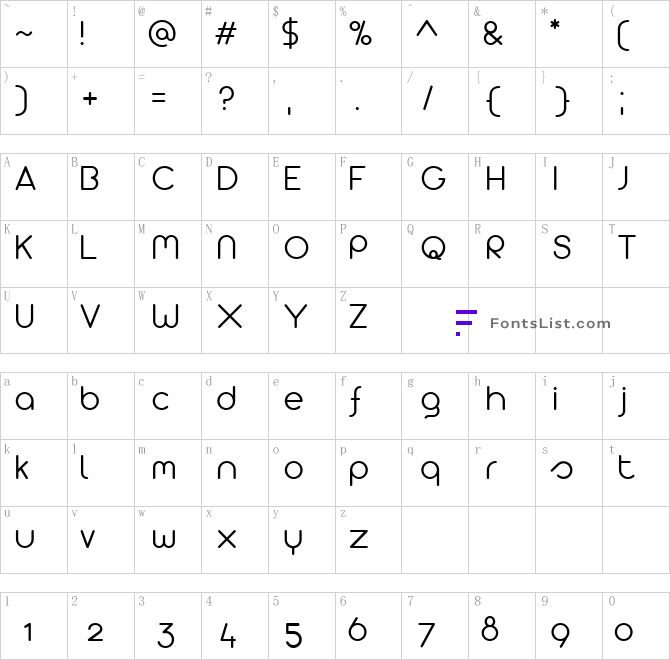
- Font Name:Arista 2.0 Alternate Light
- Full Name:Arista 2.0 Alternate Light
Arista-20-Alternate-Light.ttf is a very beautiful artistic font, Arista-20-Alternate-Light.ttf is widely used in the design and printing of various books and pictures,Arista-20-Alternate-Light.ttf has a strong visual impact,Arista-20-Alternate-Light.ttf is a commonly used font in newspapers, magazines and books, and is used in posters, e-commerce Poster design, store design, logo design, font design and other fields.Arista-20-Alternate-Light.